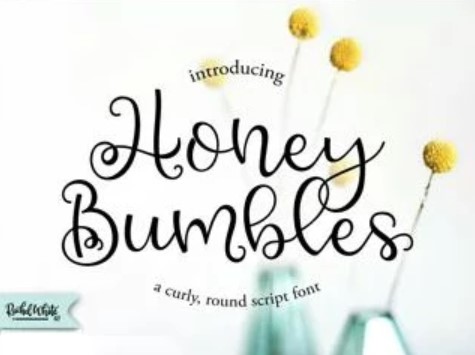
Dive into the Whimsical World of Honey Bumbles​
Crafting Playful Designs​
Honey Bumbles is not just a font; it's a creative companion ready to infuse your designs with a playful spirit. With unique curves, swirls, and loops for every character, each creation becomes a canvas for charm and individuality.
Endless Design Possibilities​
Delve into a world of endless possibilities with alternate glyphs, initial lowercase alternates, terminal lowercase alternates, and ligatures for double letter combinations. The font's versatility extends to four distinctive options for ampersands, allowing you to customize your designs with flair.
Features that Set Honey Bumbles Apart​
Language Support and Bonus Flourishes​